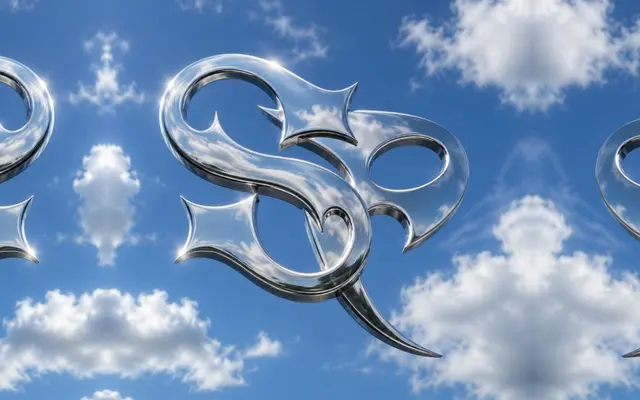
Spaceship
A retro-futuristic display face by Lucie Giriat and Mat Desjardins, combining organic curves, sharp terminals and Art Nouveau influences drawn from the golden age of space exploration.
A single-weight display typeface inspired by mid-century sci-fi cinema and psychedelic graphic design, Spaceship merges unconventional letterform proportions with flowing, spike-edged strokes. The 406-glyph set covers Latin Extended A for broad Western language support, and an alternate Y is available via OpenType. Best suited to large-scale headlines, poster work, album covers and branding where personality takes precedence over neutrality.
A single-weight display face with expressive, organic letterforms and sharp terminals, drawing on psychedelic typography and Art Nouveau; firmly in the display category with no text-setting intent.